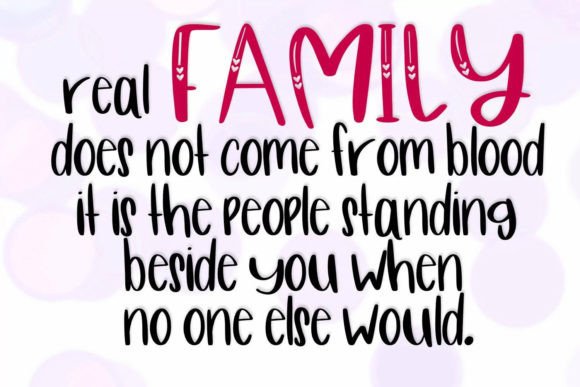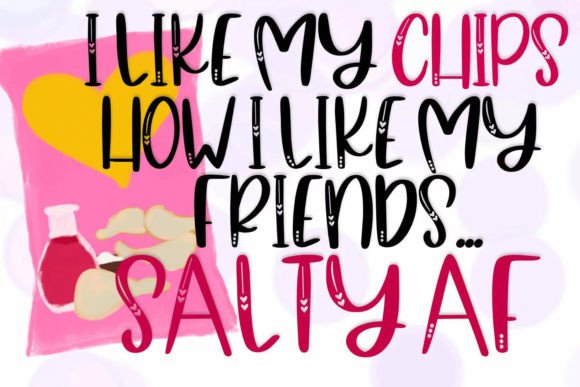
Vinegar N Salt Font
About Vinegar N Salt Font
Introducing Vinegar N Salt, a delightful and “salty” handwritten font with a dash of attitude! This font allows you to mix and match for a truly unique look every time you use it. Optimized for cutting, Vinegar N Salt features clean nodes that won’t slow down your machine’s progress. Give Vinegar N Salt a try on your next project and add a touch of personality with its distinctive charm.
The adorable and “salty” nature of Vinegar N Salt sets it apart, making it a fun and playful choice for a variety of projects. Whether you’re creating digital designs or working on physical crafts, this font brings character and attitude to your text.
The mix-and-match capability of Vinegar N Salt adds an extra layer of creativity to your designs. Experiment with different combinations to achieve a truly unique and personalized look that suits your project’s theme and style.
Vinegar N Salt’s optimization for cutting machines ensures a smooth and efficient process, making it a practical choice for those working on projects that involve cutting, such as paper crafts or vinyl designs.
In summary, Vinegar N Salt is more than just a font; it’s a design asset that brings a playful and sassy vibe to your projects. Let Vinegar N Salt be the font that adds a unique and spirited touch to your next project, making it stand out with its adorable and “salty” handwritten style.